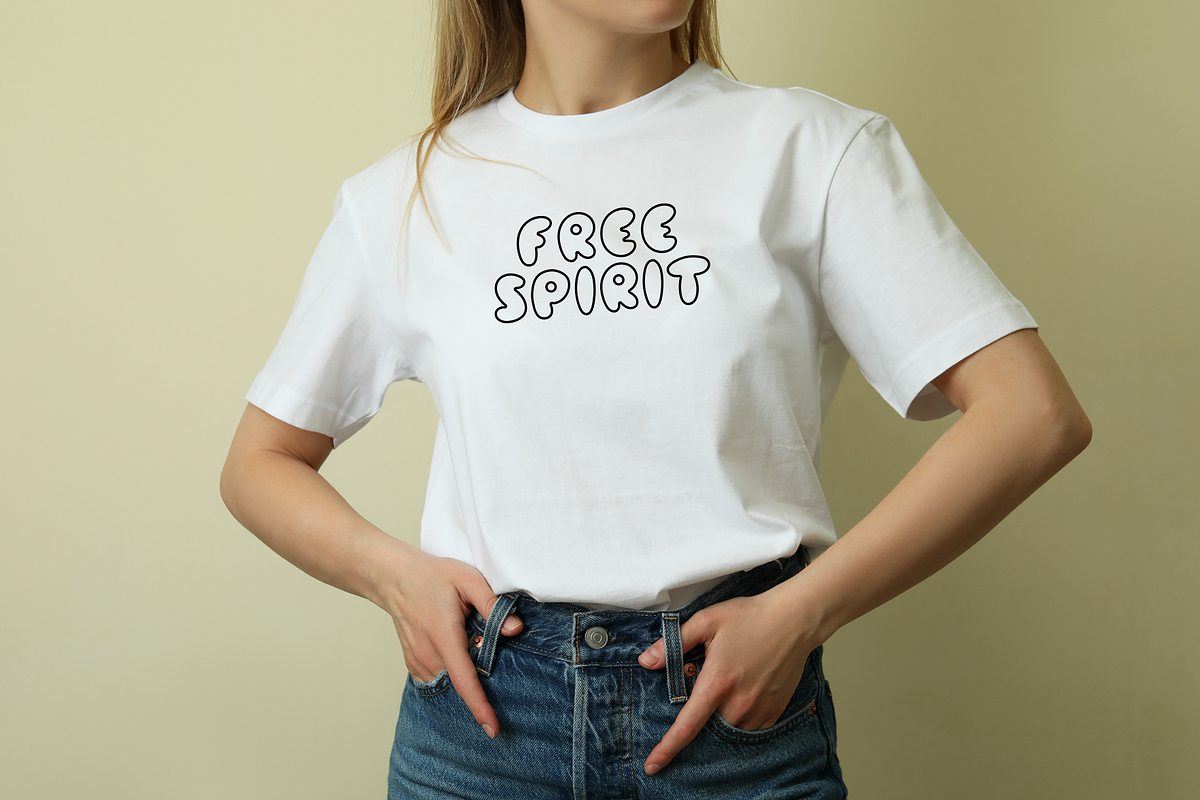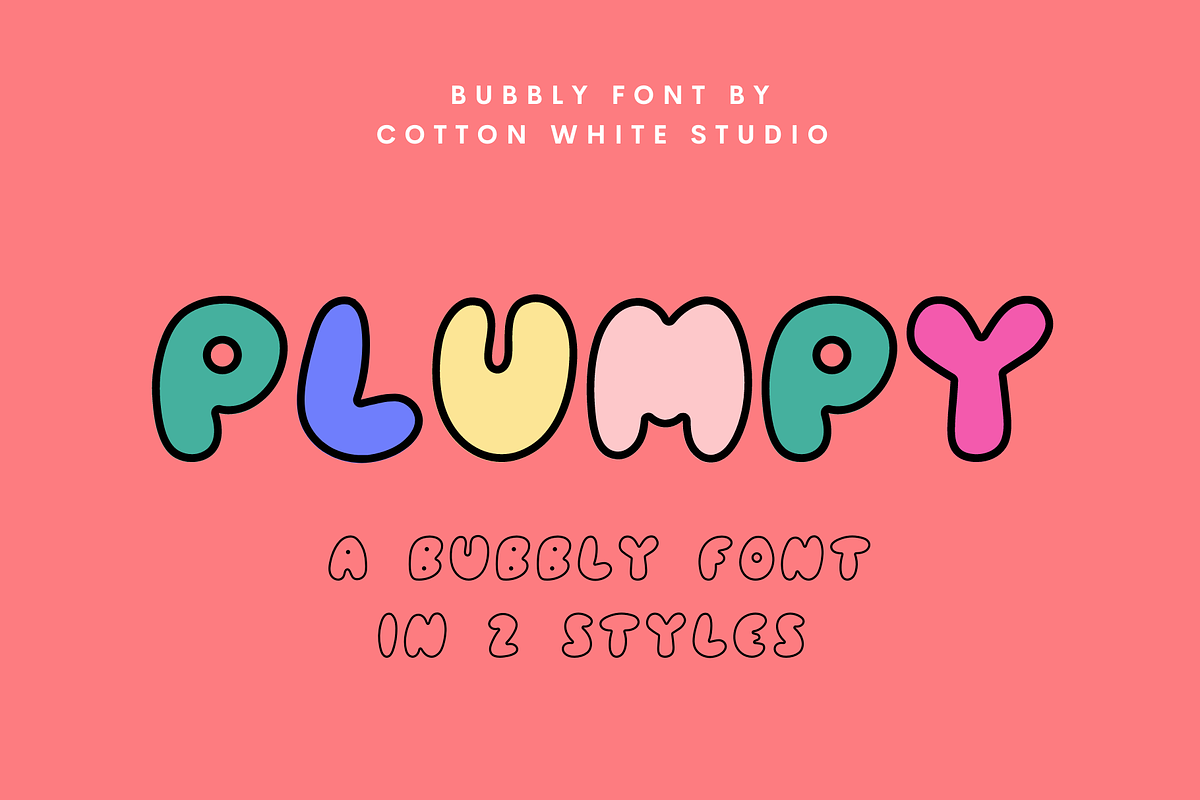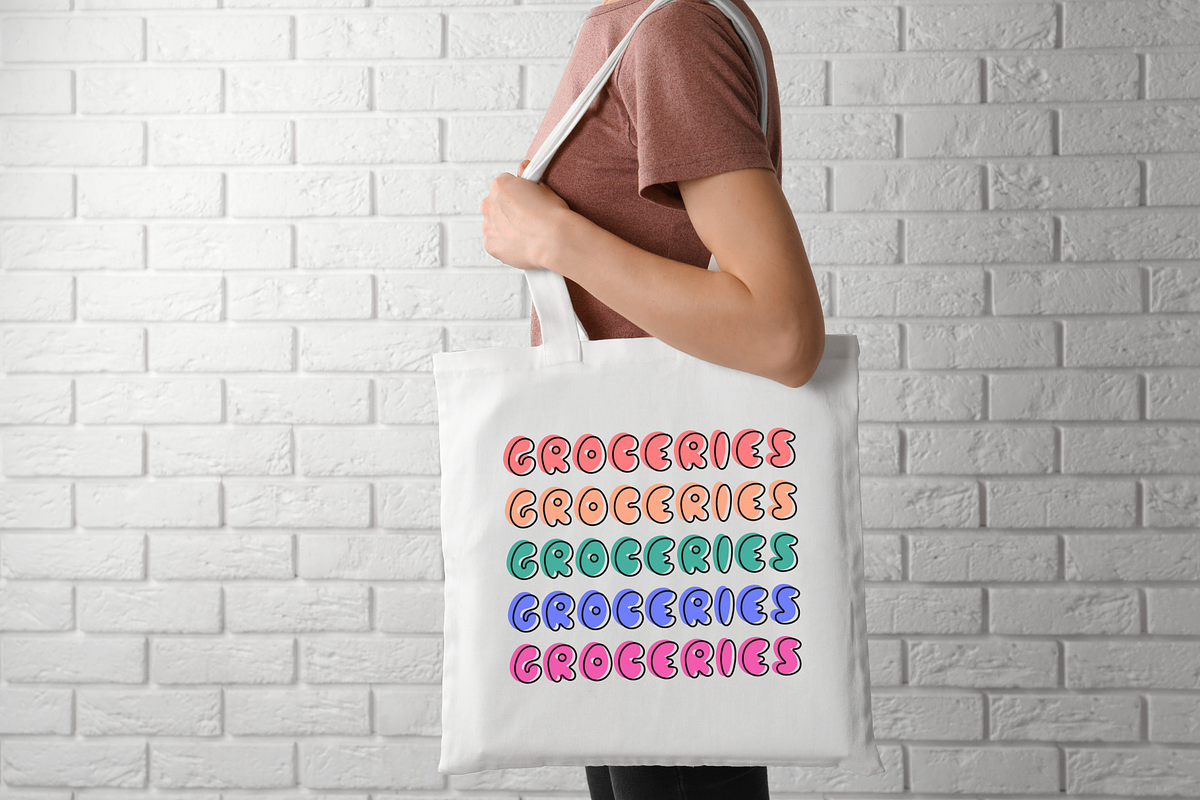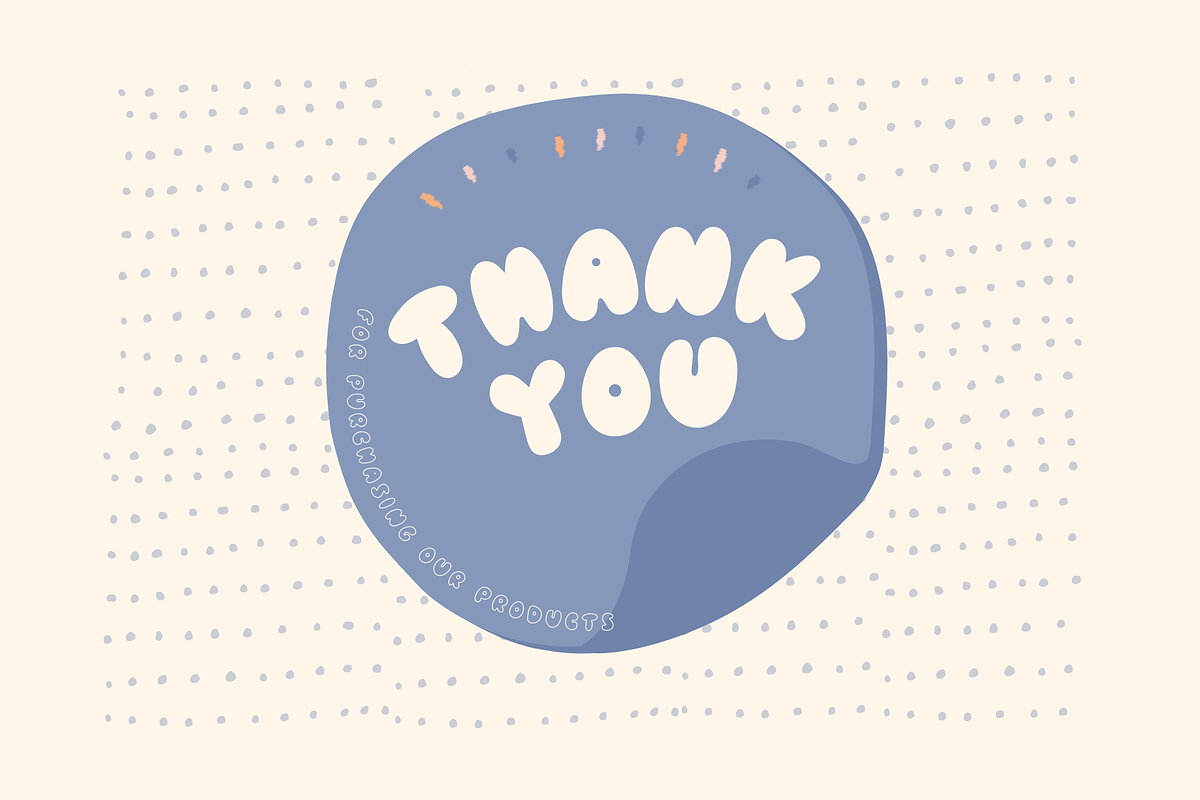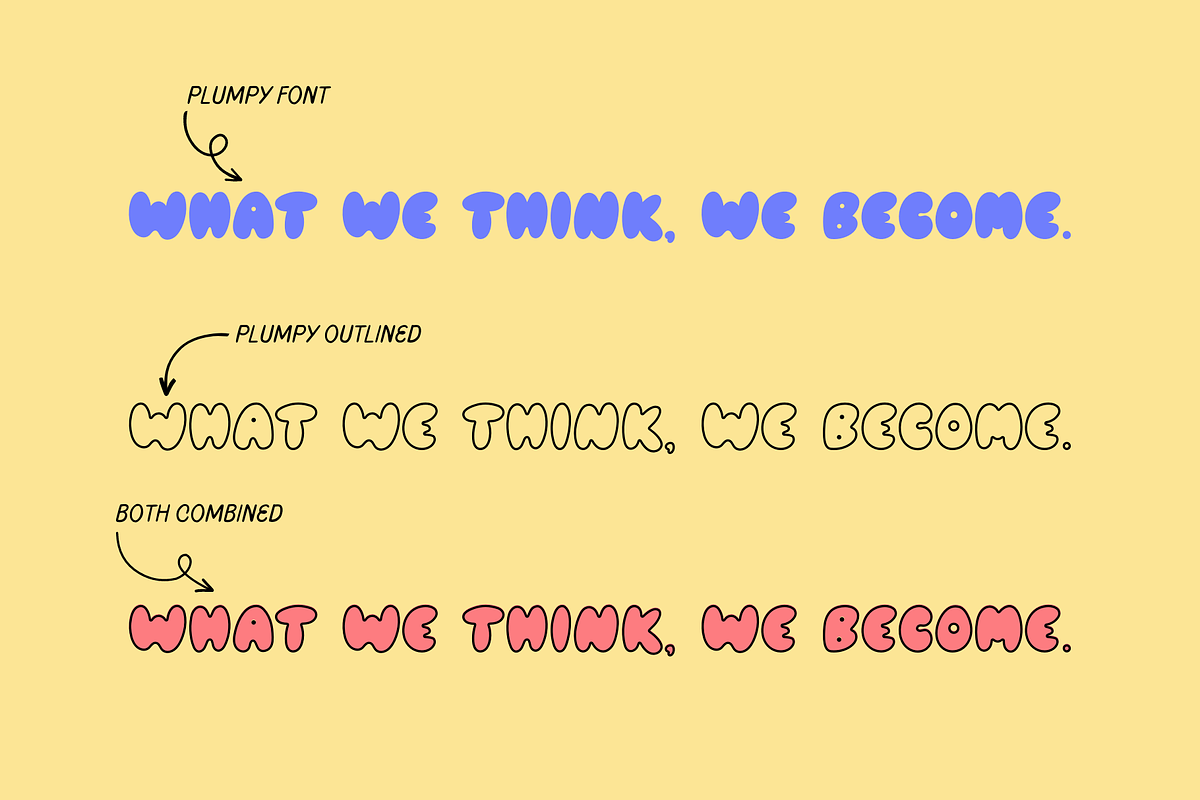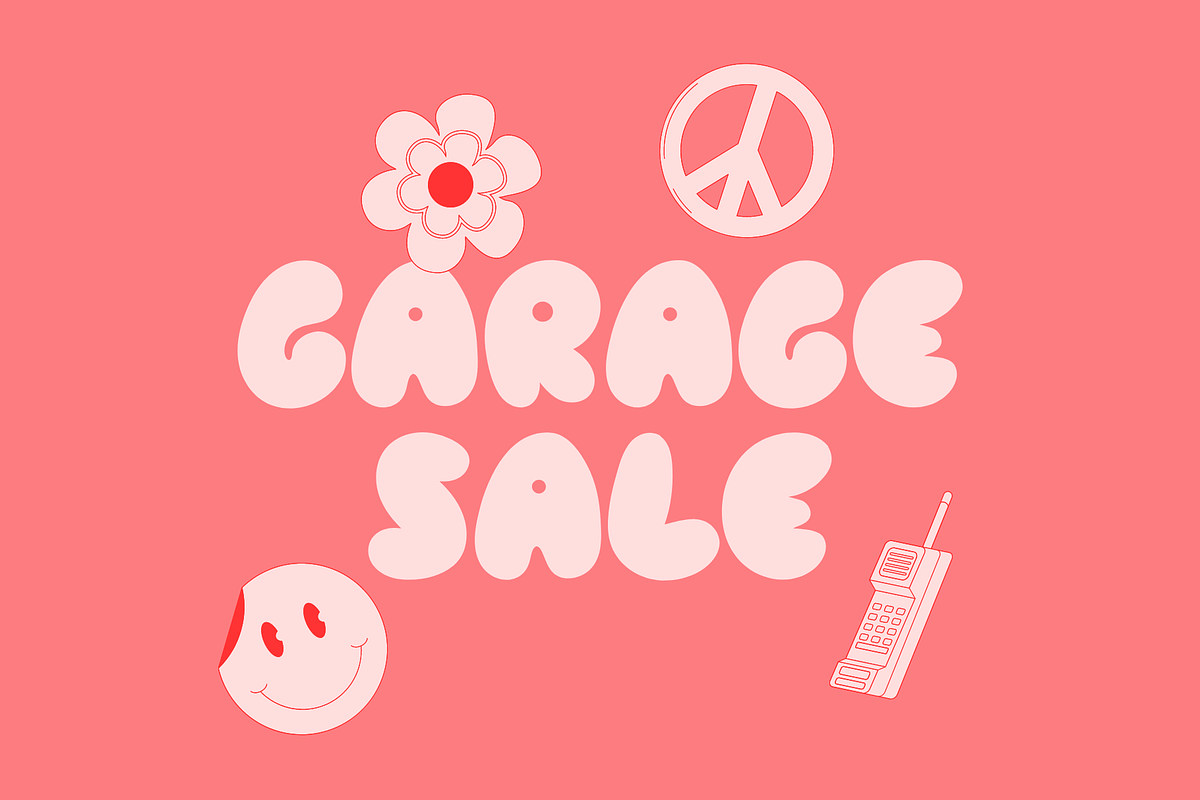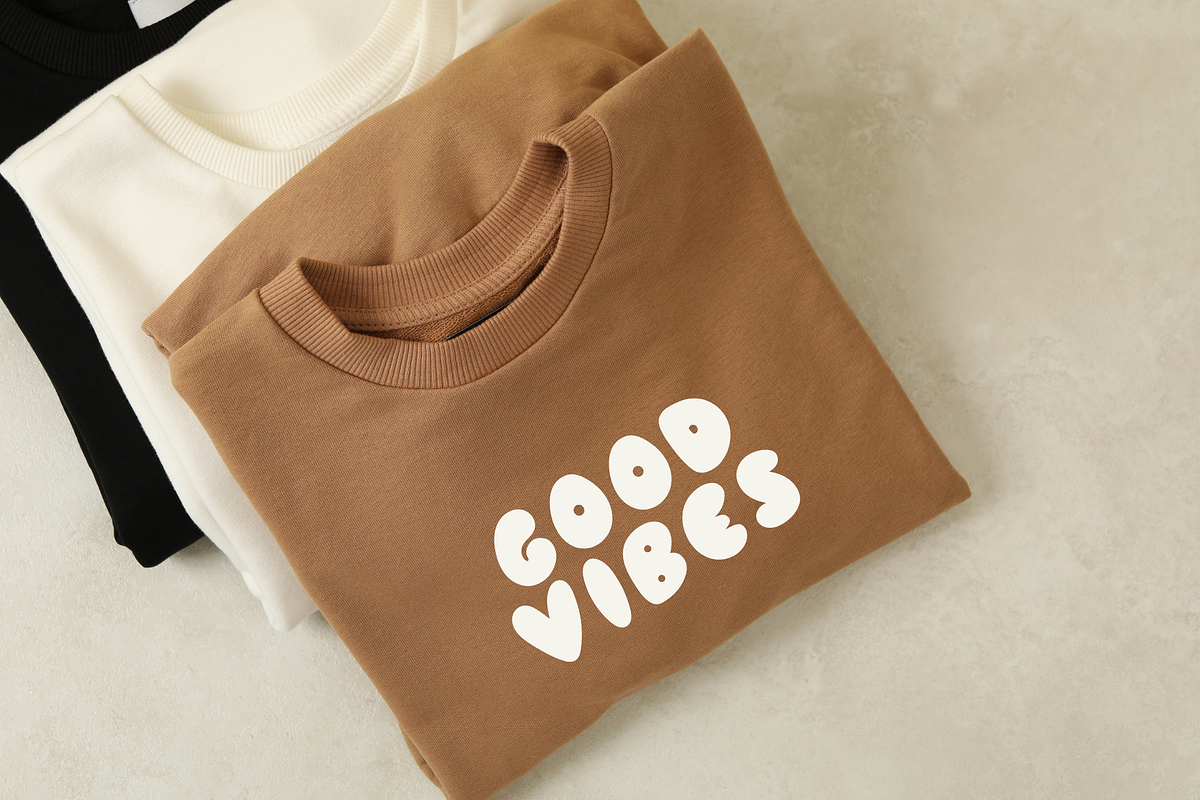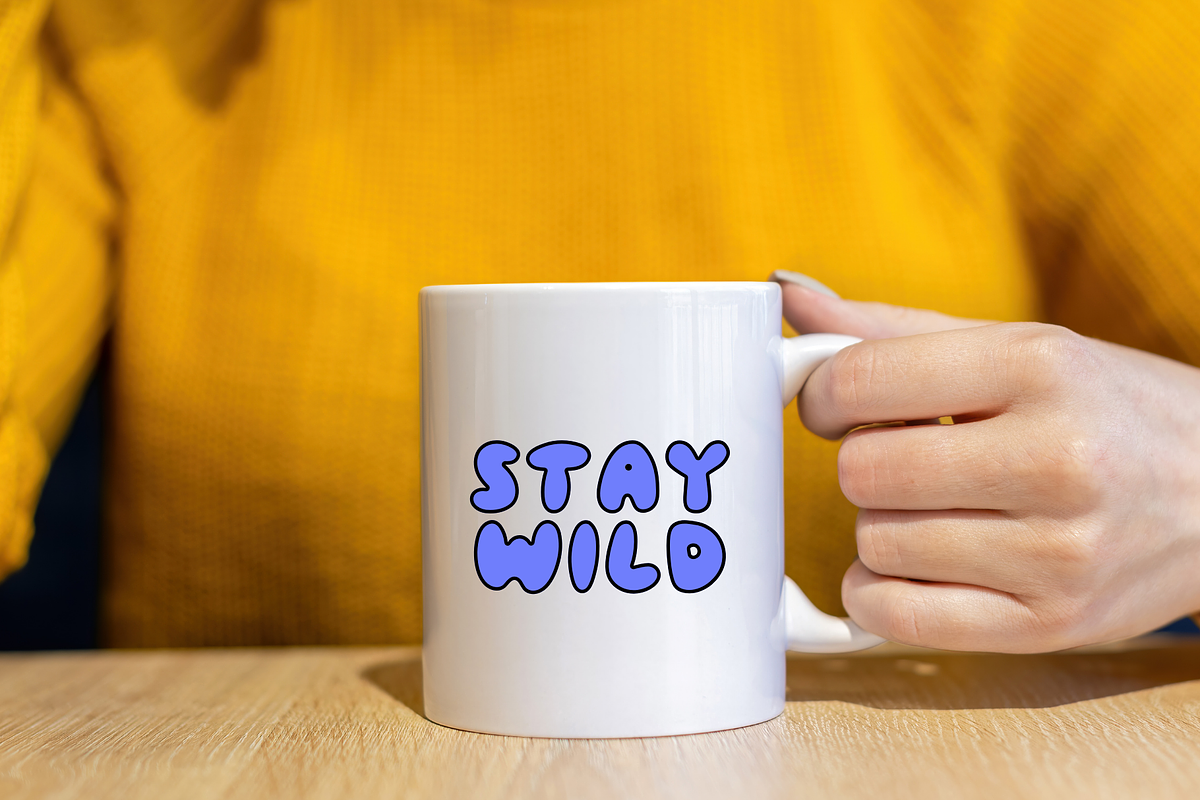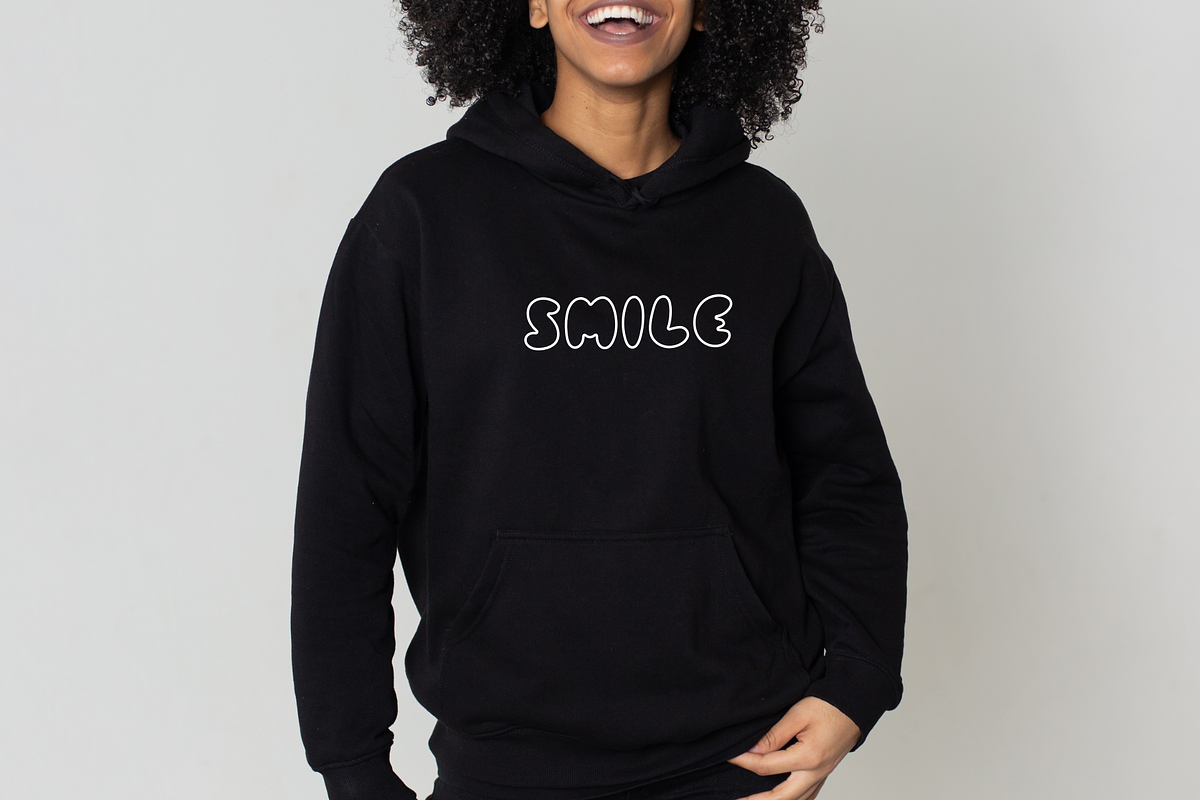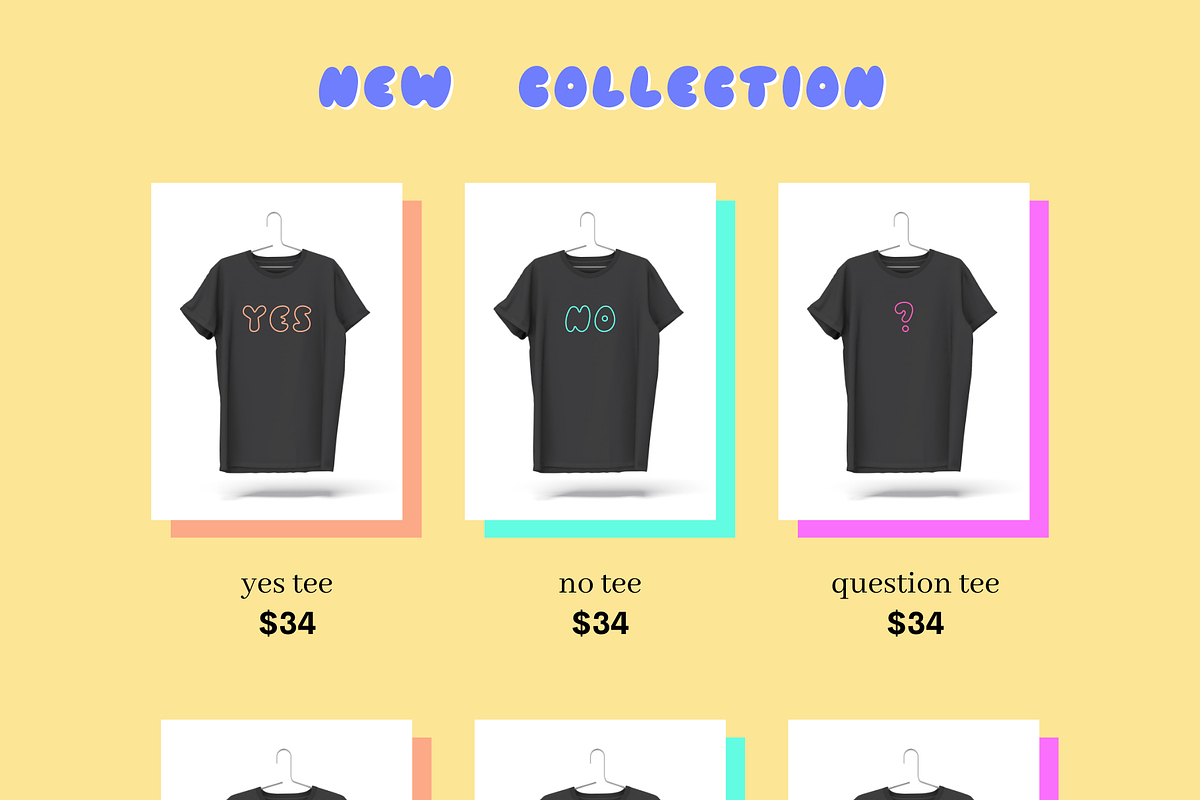
Plumpy
Bold and cute font for your creative projects; mugs, t-shirts, wall prints, labels, stickers, blogs, quotes, greeting cards, tea towels, apparel, pillows, toys, posters, baby clothing, picture books and so much more 😍